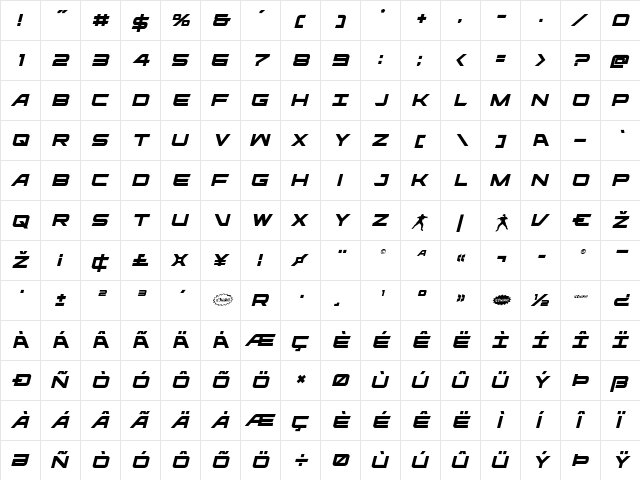
Ghost Clan Italic Italic
Design Context for Ghost Clan Italic Typeface
Ghost Clan Italic offers clean, dependable letterforms without strong stylistic allegiance, making it a practical choice for designers who need flexibility. Its italic angle brings a sense of urgency and motion to the letterforms.
Pro Tip: Use Ghost Clan Italic for emphasis, pull quotes, and subheadings where its slanted energy can add rhythm to the layout.